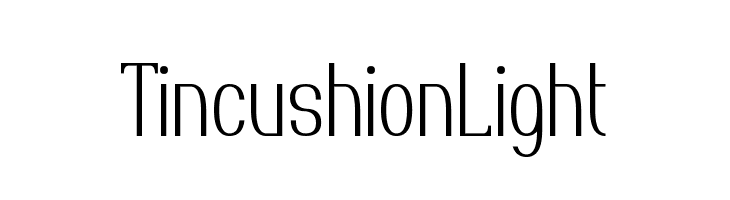
( Florin Florea - florin.reel.ro )
A decorative font with intricate line work and geometric patterns.
( Florian Mihr - www.cali-o-rama.com )
A vintage, typewriter-style font with a textured, handcrafted appearance.
( Florian Mihr - www.cali-o-rama.com )
A bold, vintage-style font with strong serifs and a classic sports theme.
( Florian Mihr - www.cali-o-rama.com )
A bold, decorative font with a double-outline effect and strong, blocky letterforms.
( Florian Mihr - www.cali-o-rama.com )
A blackletter font with sharp, angular lines and Gothic influences.
( Florian Contreras )
A pixelated, retro-style font with a blocky, geometric design.
( Florian Contreras )
A bold, 3D pixelated font with a geometric, retro style.
( FlipDarius - Felipe Dário - felipedario.com/ )
An artistic and illustrative font with characters embedded in folk art scenes.
( FlipDarius - Felipe Dário - felipedario.com/ )
A dynamic, brush-style font with fluid, hand-drawn characteristics.
( FlipDarius - Felipe Dário - felipedario.com/ )
A bold, textured font with a rugged, hand-crafted appearance.
( FlipDarius - Felipe Dário - felipedario.com/ )
A bold, graffiti-inspired font with a rugged, brush-like texture.
( Flamde Studio - Nur Solikh - creativemarket.com/flamde/ )
A playful, handwritten-style font with consistent stroke width.
( Flamde Studio - Nur Solikh - creativemarket.com/flamde/ )
A bold, expressive script font with flowing, connected letterforms.
( Flamde Studio - Nur Solikh - creativemarket.com/flamde/ )
An elegant, flowing script font with ornate, cursive strokes.
( Flamde Studio - Nur Solikh - creativemarket.com/flamde/ )
A bold and expressive script font with flowing, connected letterforms and high contrast.
( Flamde Studio - Nur Solikh - creativemarket.com/flamde/ )
A bold, hand-painted style font with expressive, uneven strokes.
( Flamde Studio - Nur Solikh - creativemarket.com/flamde/ )
A bold, hand-drawn font with dynamic and expressive strokes.
( Flamde Studio - Nur Solikh - creativemarket.com/flamde/ )
A bold, modern script font with elegant curves and a dynamic style.
( Fizzetica - Abdul Hapiz Hilman - sellfy.com/fizzetica.co )
A decorative font with intricate, ornamental uppercase letters and streamlined lowercase characters.
( Fizzetica - Abdul Hapiz Hilman - sellfy.com/fizzetica.co )
An ornate, decorative font with intricate floral embellishments.
( Fino 3 )
A geometric, modern font with a digital and futuristic style.
( Fino 3 )
A bold, geometric font with a playful and block-like design.
( Filiz Sahin - www.filizsahin.com )
A whimsical, playful font with thin strokes and dotted accents.
( Filiz Sahin - www.filizsahin.com )
A tall, narrow, and modern condensed font with uniform stroke widths.
( Filiz Sahin - www.filizsahin.com )
A bold, playful font with rounded, elongated characters and a modern, handwritten style.
( Filiz Sahin - www.filizsahin.com )
A tall, narrow, and modern font with clean lines and tight spacing.
( Filippo Morara - be.net/filippomorara )
An angular, bold, and decorative font with a mysterious, ancient script vibe.
( Filip Zajac - www.zajac.ideoci.eu )
A modern serif font with balanced proportions and clear readability.
( Fikry Alif - fontbundles.net/admin/products.php )
A playful, casual handwritten font with fluid strokes and a friendly appearance.
( Fikry Alif - fontbundles.net/admin/products.php )
A bold and italic script font with elegant, flowing cursive letters.
( Fikry Alif - fontbundles.net/admin/products.php )
A casual, handwritten font with a playful and artistic style.
( Fikry Alif - fontbundles.net/admin/products.php )
A playful, artistic handwritten font with flowing, interconnected letterforms.
( Figuree Studio - Icep Fadhil )
A bold, angular font with a futuristic and geometric style.
( Figuree Studio - Icep Fadhil )
A playful and bold font with whimsical curves and a dynamic style.
( Figuree Studio - Icep Fadhil )
A tall, narrow, and modern font with a sleek and consistent design.